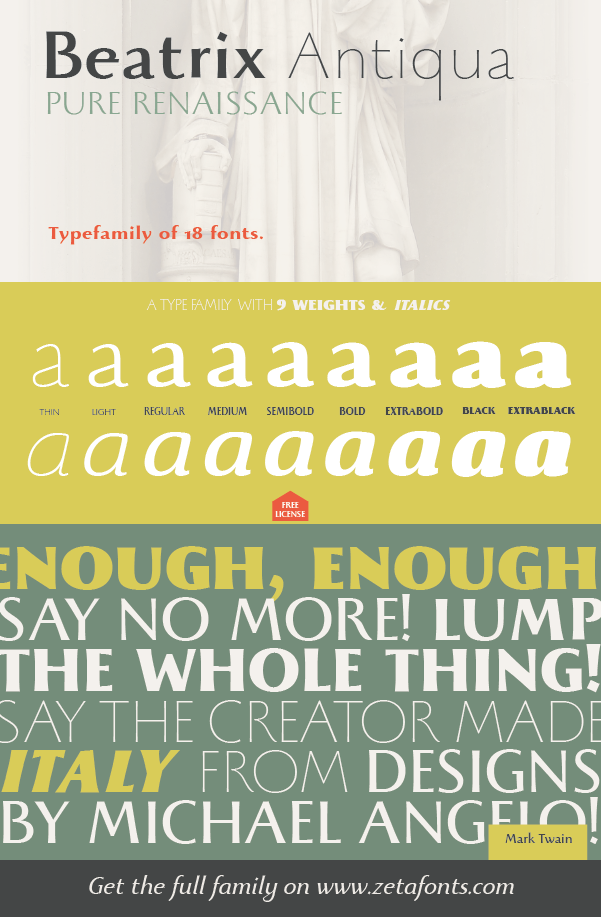
Font name: | Beatrix Antiqua |
Beatrix Antiqua is a humanist sans-serif typeface designed by Francesco Canovaro. Beatrix Antiqua is part of the Beatrix Family that takes its inspiration from the classic Roman monumental capital model: its capitals are directly derived from the stone carvings in Florence Santa Croce Cathedral - where the serifs are often removed while keeping the variable width strokes. So, even if it's basically a sans-serif, Beatrix keeps a subtle swelling at the terminals suggesting a glyphic serif - in the same vein as Herman Zapf classic Optima typeface. In the lowercase design, Beatrix references early humanist typefaces, keeping small calligraphic details (as the prolongation of the e nose) that are expecially visible in the italics. While Beatrix Antiqua, the companion typeface to Beatrix Nova, slightly exaggerates its antique stylistical features, Beatrix Antiqua tries to mix those influence with a classic design, featuring lower X-height and an extended character set that covers over fourty languages using the latin alphabet, as well as Greek and Russian Cyrillic. ---------------------------- This trial font is TOTALLY FREE for NONCOMMERCIAL USES. For commercial uses and to download the full commercial typeface visit http://www.zetafonts.com/beatrix-antiqua ---------------------------- Have a question?: info@zetafonts.com |